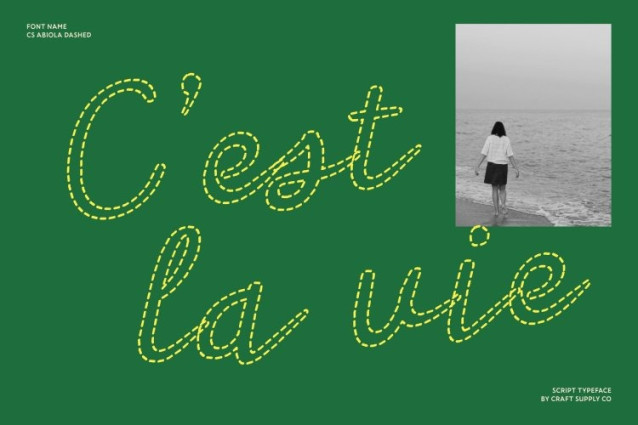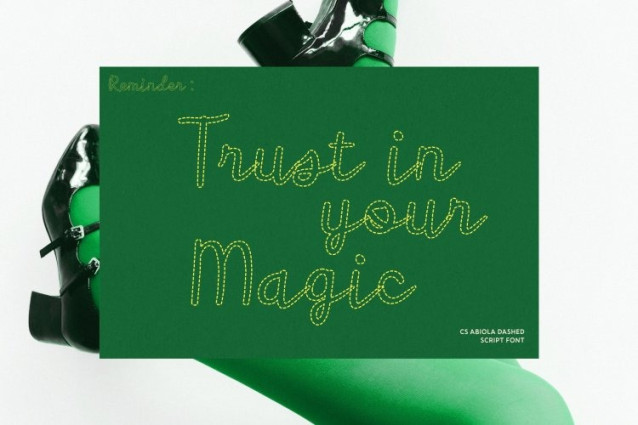
CS Abiola Dashed Font
CS Abiola Dashed – A Graceful Modern Script with Feminine Charm
Elegant Flow with a Playful Dashed Touch
This is a modern script font that captures the beauty of graceful cursive handwriting while introducing a delicate dashed structure. Each letter is formed from short, broken strokes that mimic pen movement, creating a light, airy rhythm that feels creative and relaxed.
Sweet, Feminine, and Stylish
Soft curves and smooth connections give the font a charming feminine personality that feels warm, cute, and expressive. The dashed detailing enhances its playful elegance, adding a subtle handcrafted feel while maintaining clarity and sophistication.
Creative and Relaxed Visual Expression
The broken line structure gives the font a friendly, approachable tone, often associated with creativity and casual elegance. It brings a sense of spontaneity and artistic freedom, making every word feel lively and personal.